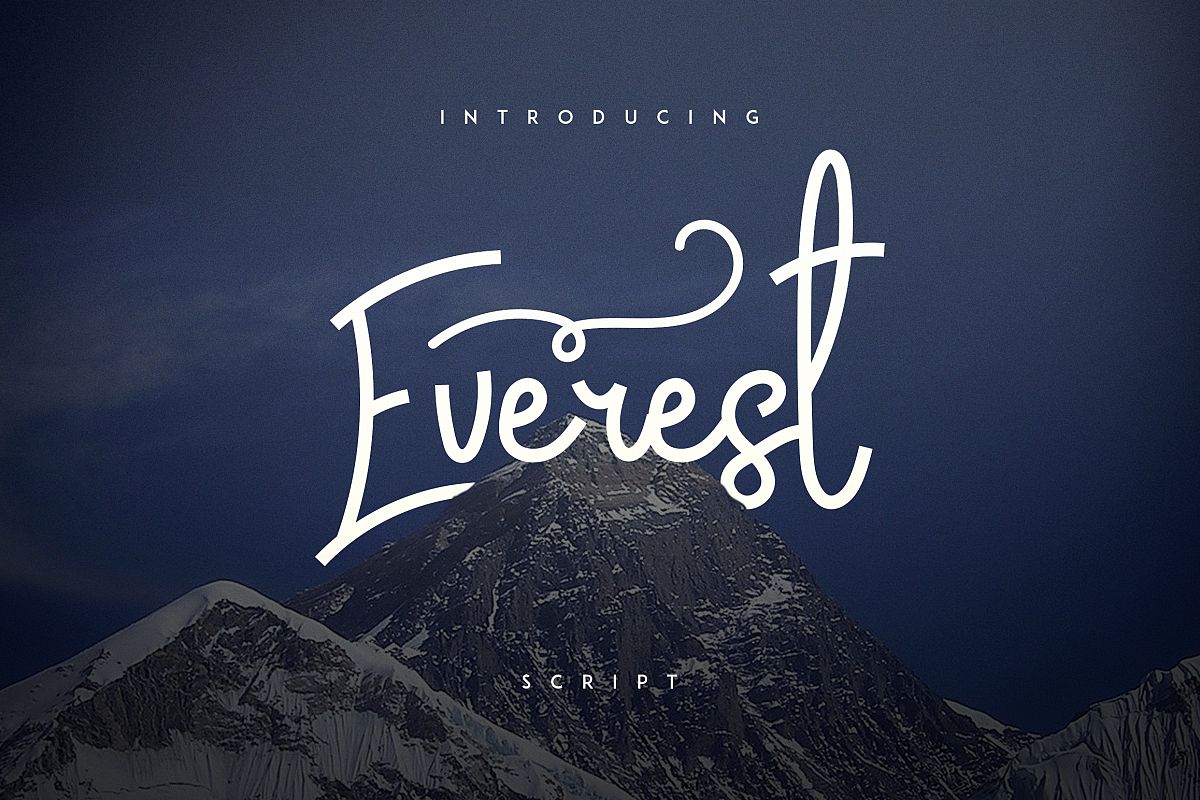
Everest script
Everes
Everest-Swashes
Introducing: Everest script ! A handwritten fonts with a personal charm. With dry clean lines, Everest is perfect for branding projects, home-ware designs, product packaging - or simply as a stylish text overlay to any background image.Everest script comes with 2 fonts - Everest and Everest SwashesThank you! Enjoy